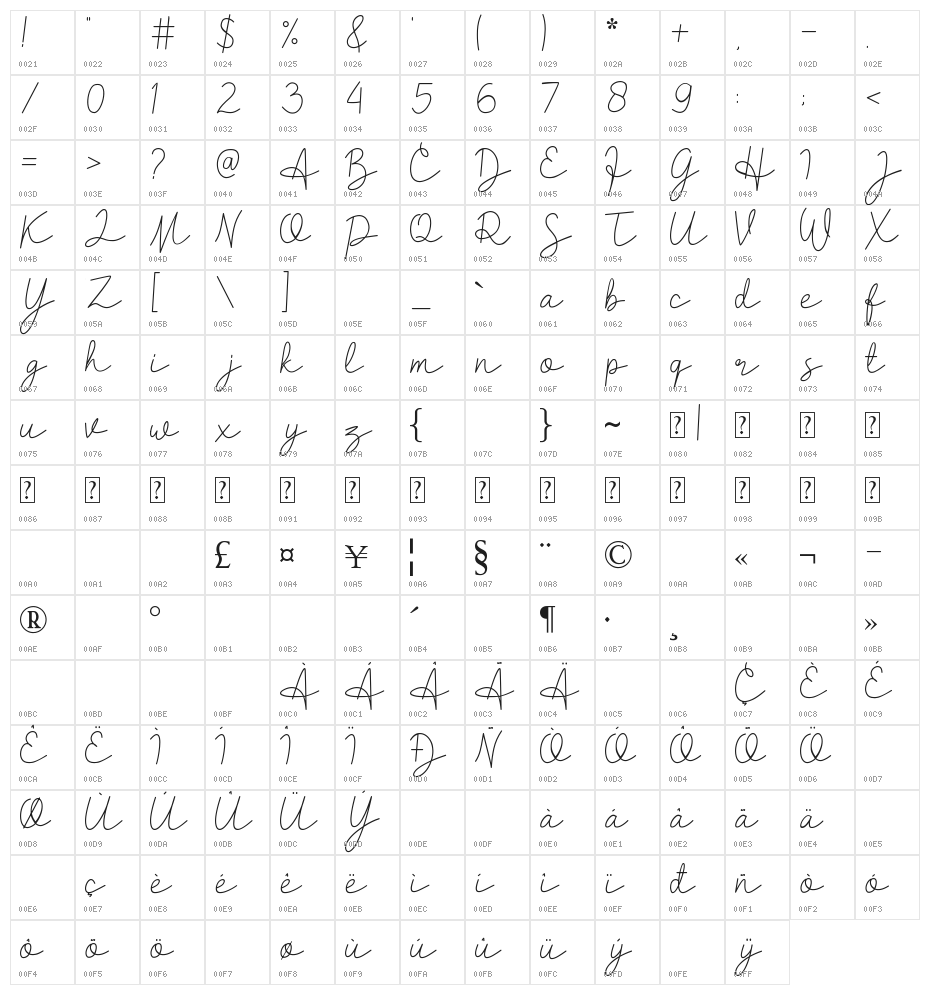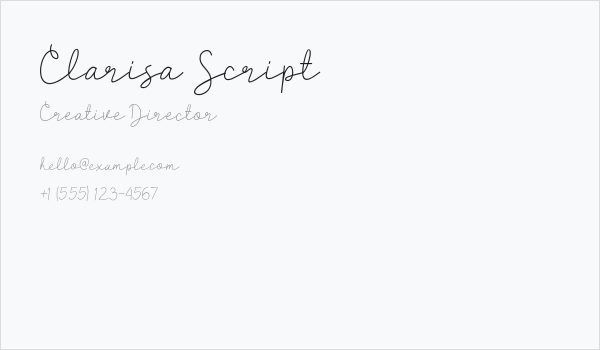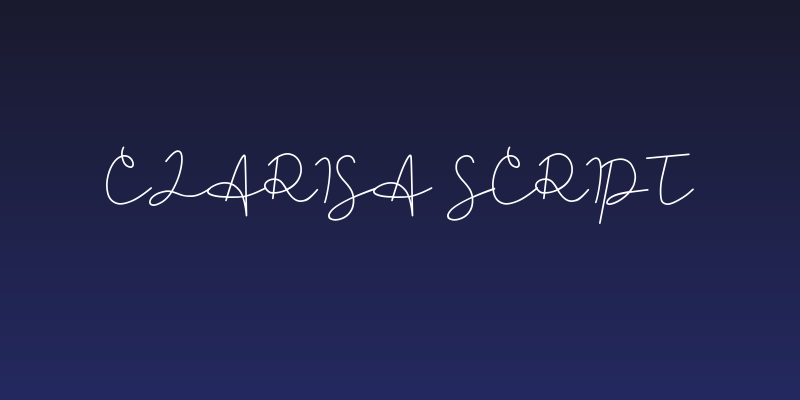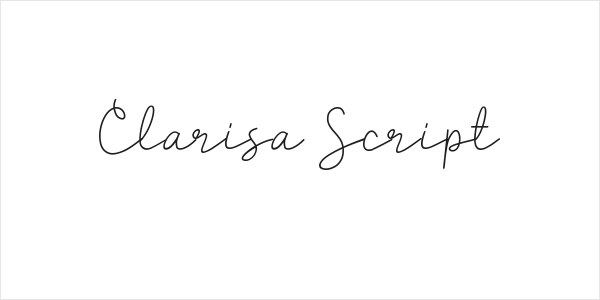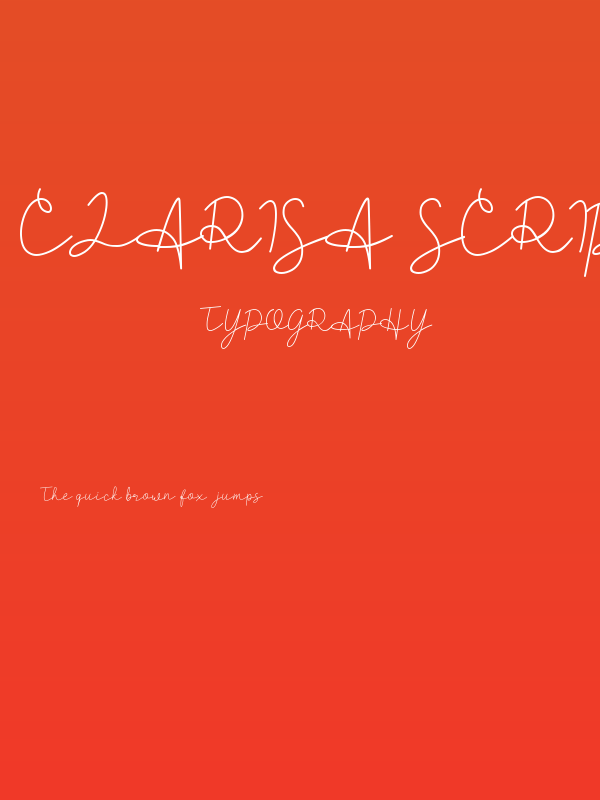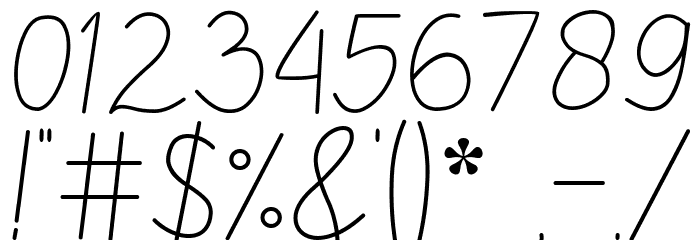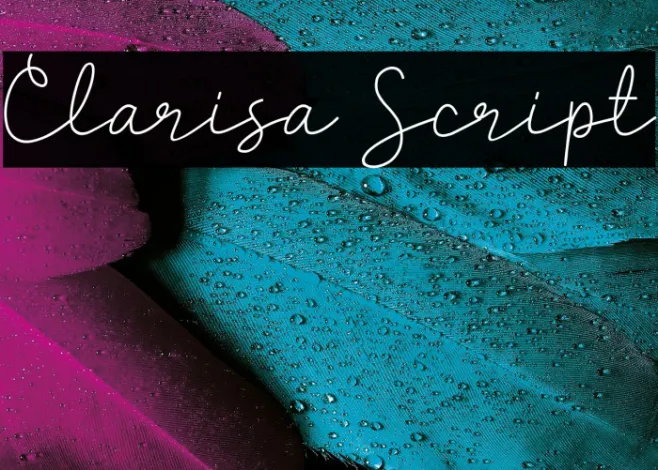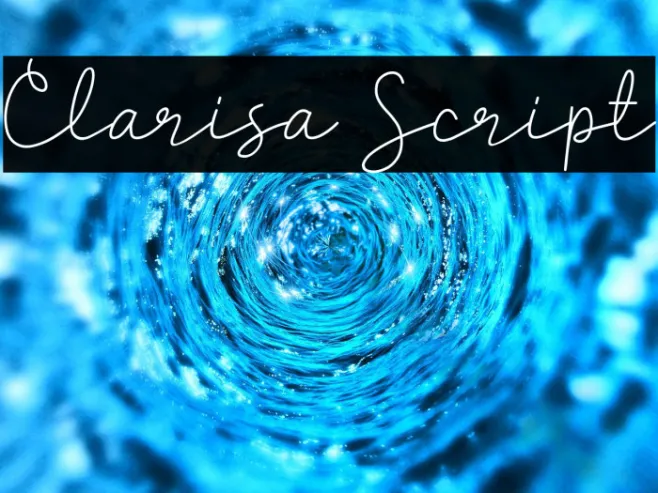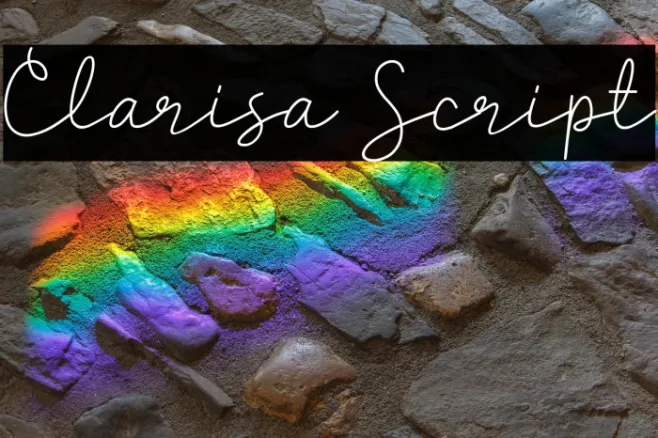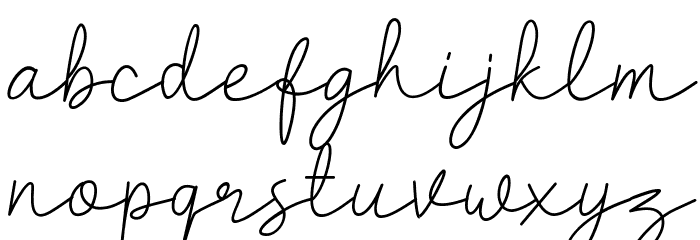
Clarisa Script Font
Clarisa Script Description
This font exudes a graceful and elegant script style, characterized by its fluid, cursive strokes that mimic natural handwriting. The uppercase letters are slightly more structured, maintaining a balance between formality and casual flair, while the lowercase letters flow seamlessly into one another, enhancing the handwritten effect. The numerals and special characters maintain the same fluidity, ensuring consistency across all glyphs. The overall appearance is delicate yet legible, making it suitable for a variety of design applications.
| Proposed Projects | Ideal for wedding invitations, greeting cards, personal branding, and elegant packaging designs. |